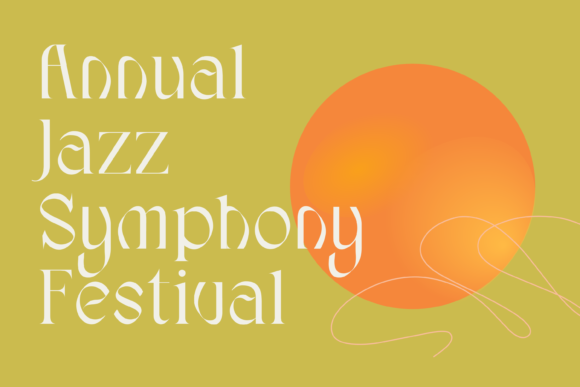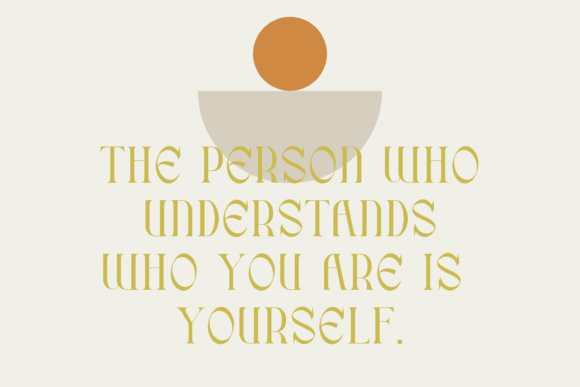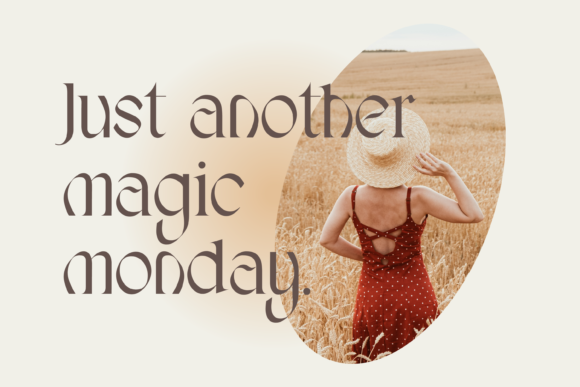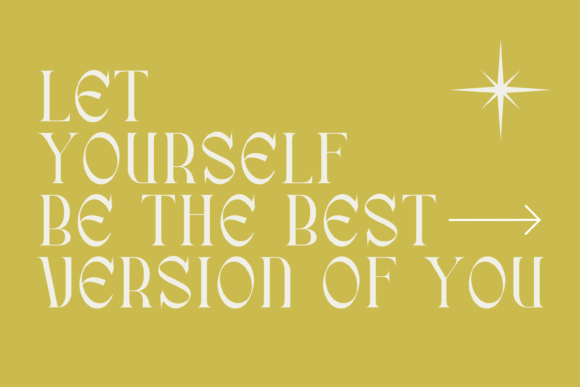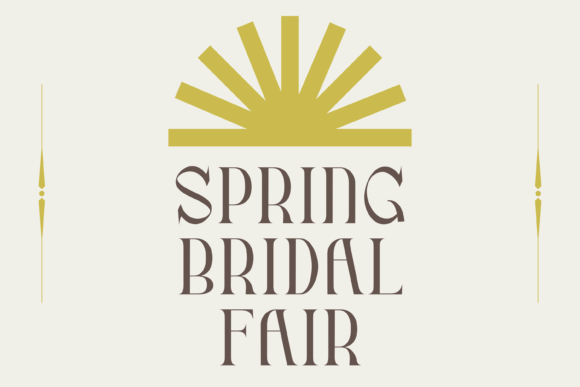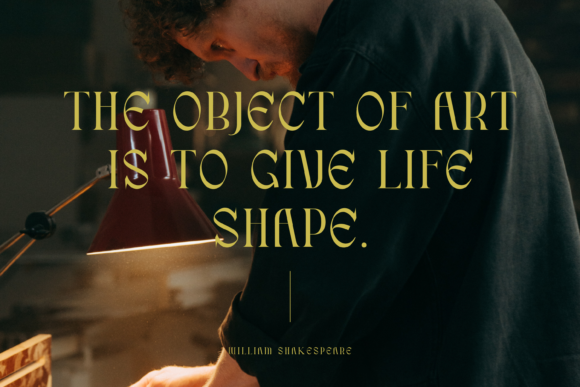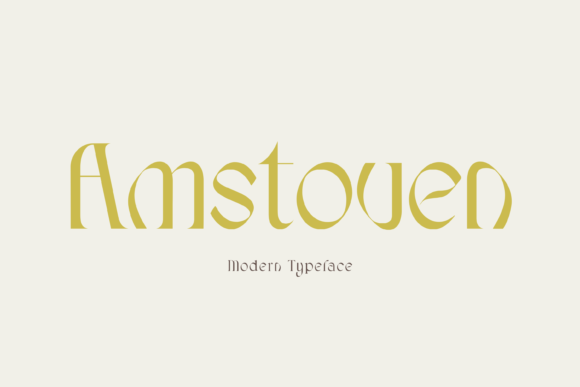
Introducing Amstoven Font: Elevate Your Designs with Modern Whimsy
In the world of typography, fonts play a pivotal role in conveying messages, expressing creativity, and capturing the essence of a brand. For designers and crafters seeking a modern, whimsical, and chic serif font, Amstoven Font is an exceptional choice. This versatile typeface is perfect for fashion branding, editorial designs, and a wide range of creative projects. With Amstoven Font, you can add a touch of sophistication and playfulness to your work, ensuring that your designs stand out and leave a lasting impression.
The Allure of Amstoven Font
Amstoven Font boasts a unique blend of modernity and whimsy, making it an ideal choice for designers who want to infuse their projects with a fresh and stylish vibe. Its serif design adds a touch of elegance and sophistication, while its whimsical elements inject a sense of playfulness and creativity. This font is perfect for fashion brands looking to establish a distinctive identity and for editorial designers seeking to add visual interest to their publications.
Key Features of Amstoven Font
- Modern and Chic Design: Amstoven Font features a sleek and contemporary design that is sure to captivate your audience.
- Whimsical Elements: The font’s whimsical elements add a touch of playfulness and creativity to your designs.
- Serif Elegance: The serif design of Amstoven Font adds a level of sophistication and elegance to your projects.
- Versatility: This font is perfect for a wide range of creative projects, from fashion branding to editorial designs.
Perfect for Fashion Branding
Fashion brands require a unique and captivating visual identity to stand out in a crowded market. Amstoven Font is an excellent choice for fashion branding, as it exudes modernity, sophistication, and style. Whether you’re designing a logo, packaging, or advertising materials, this font is sure to elevate your brand’s visual identity and leave a lasting impression on your target audience.
Ideal for Editorial Designs
Editorial designers seeking to add visual interest to their publications will find Amstoven Font to be an excellent choice. Its unique blend of modernity and whimsy makes it perfect for article headers, titles, and other design elements. With Amstoven Font, you can add a touch of personality to your editorial designs and make them more engaging and memorable.
Tips for Using Amstoven Font
- Experiment with Font Sizes: Amstoven Font looks great in various font sizes, so don’t be afraid to experiment and find the perfect size for your design.
- Pair with Other Fonts: Try pairing Amstoven Font with other fonts to create a unique and visually appealing typography.
- Use in Combination with Images: Amstoven Font looks great when used in combination with images, so consider using it to add text to your designs.
In conclusion, Amstoven Font is a modern, whimsical, and chic serif font that is perfect for fashion branding, editorial designs, and a wide range of creative projects. Its unique blend of modernity and whimsy makes it an excellent choice for designers and crafters seeking to add a touch of sophistication and playfulness to their work. With Amstoven Font, you can elevate your designs, capture the essence of your brand, and leave a lasting impression on your audience.